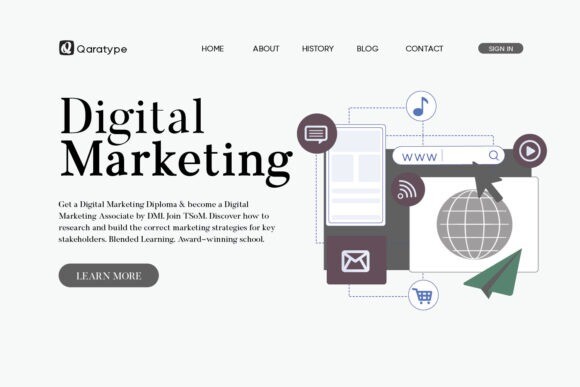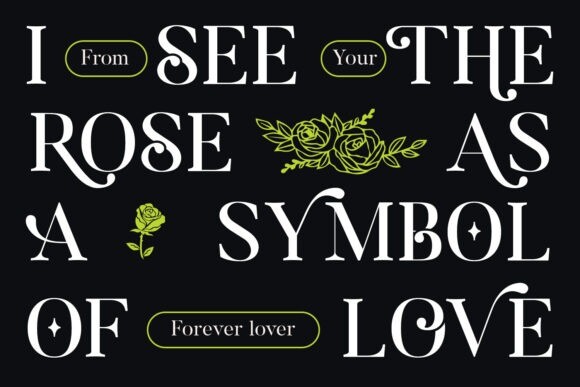
Molagane Font
Molagane is a Bold Minimalist Elegant Modern vintage font with beautiful ligatures, tons of special alternative glyphs, ornament, and multilingual support. It’s a very versatile font that works great in large and small sizes. It can easily be matched to an incredibly large set of projects, so add it to your creative ideas and notice how it makes them stand out!